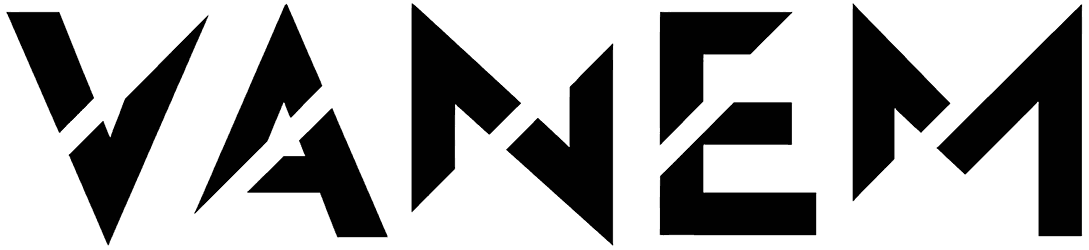
Connection Font
Look no further than Connection font if you need a techno font for your next exquisite design. Although it lacks lowercase letters, this sci-fi font with two sets of uppercase letters is versatile enough to be used for everything from the cover art and movie titles to invitation cards and messages, whether printed or displayed on a screen.